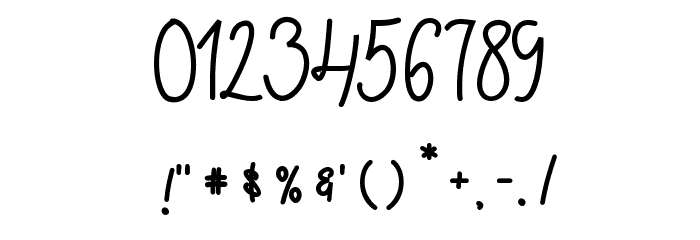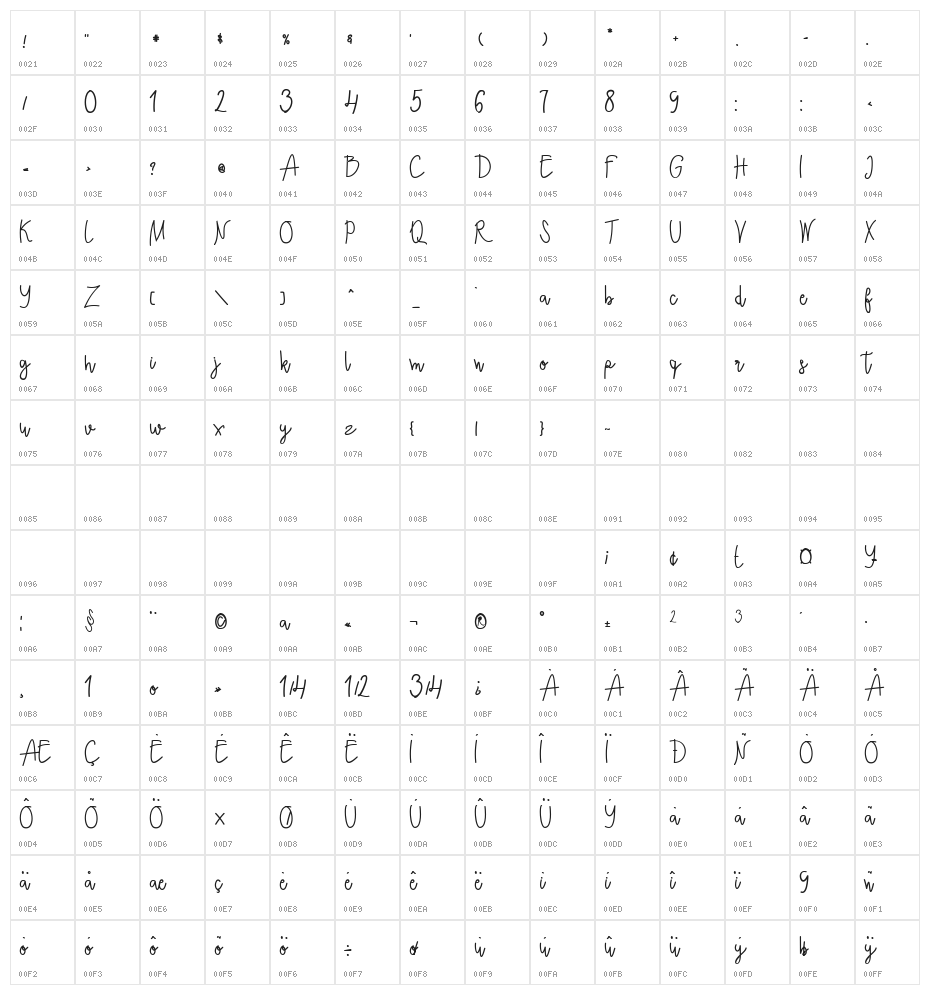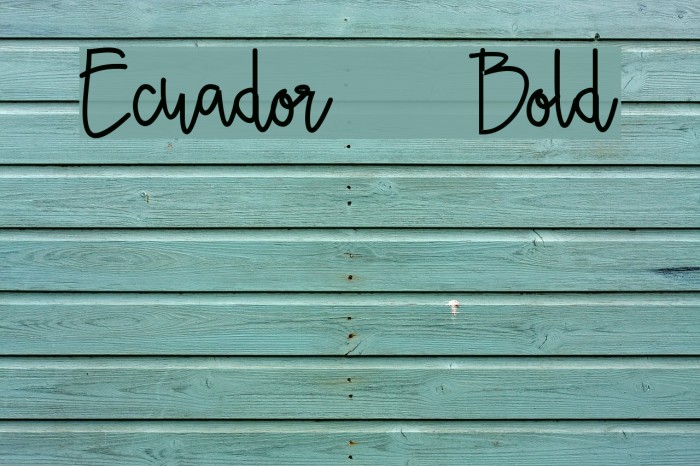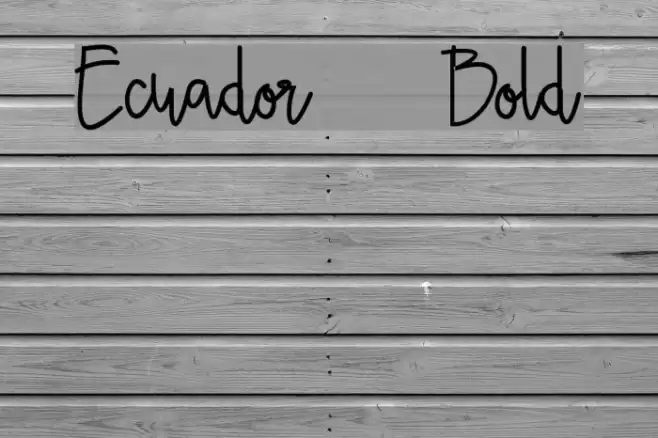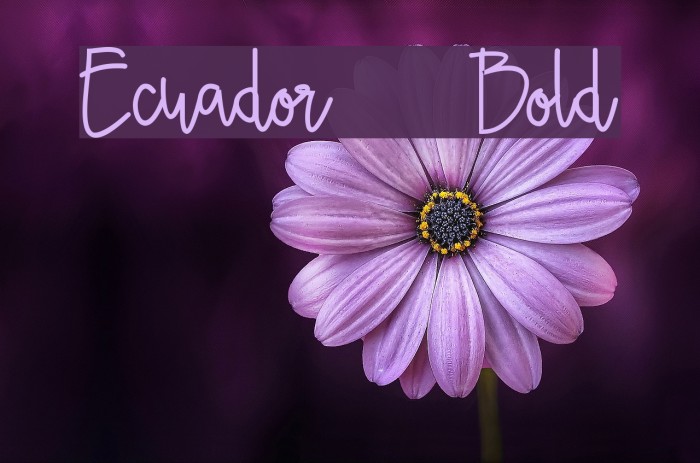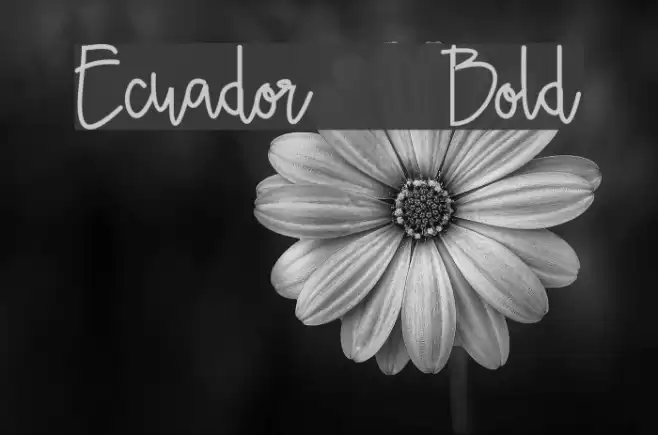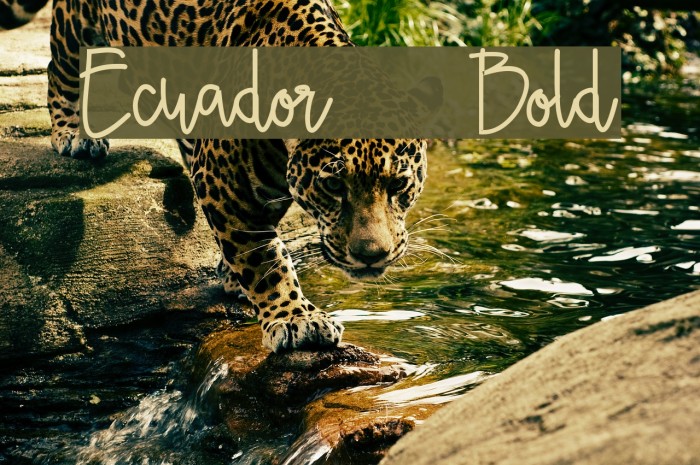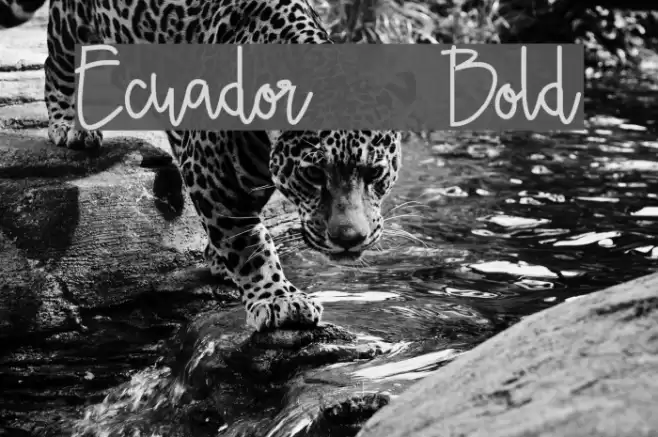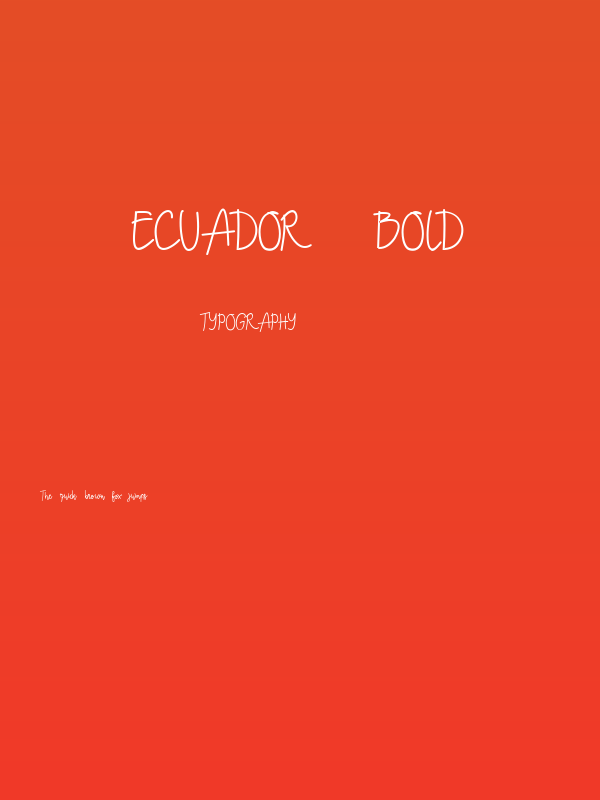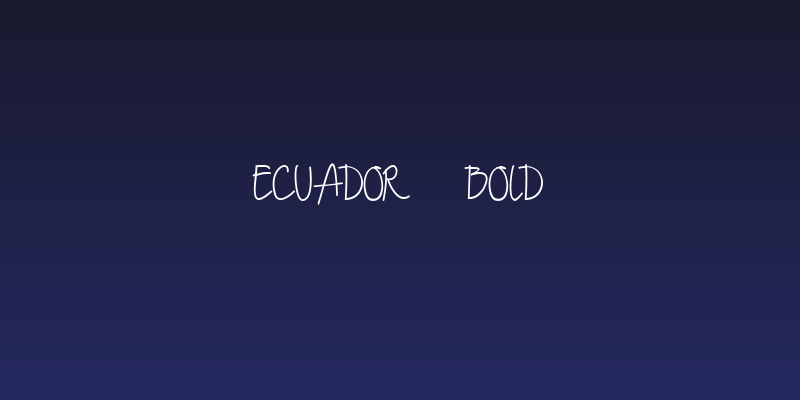
Ecuador Bold Font
Ecuador Bold Description
This font features a playful and casual handwritten style, characterized by its smooth, flowing lines and slightly irregular letterforms that give it a personal touch. The uppercase letters are tall and slender, with a slight slant that adds to the informal feel. The lowercase letters maintain a consistent style, with rounded edges and a natural, flowing connection between characters. The numerals are clear and legible, matching the overall aesthetic with their rounded and slightly whimsical design. Special characters are included, maintaining the same playful and approachable style. This font is versatile, suitable for a variety of creative projects that require a personal and friendly touch.
| Proposed Projects | Ideal for greeting cards, invitations, personal branding, and creative projects that require a friendly and informal touch. |